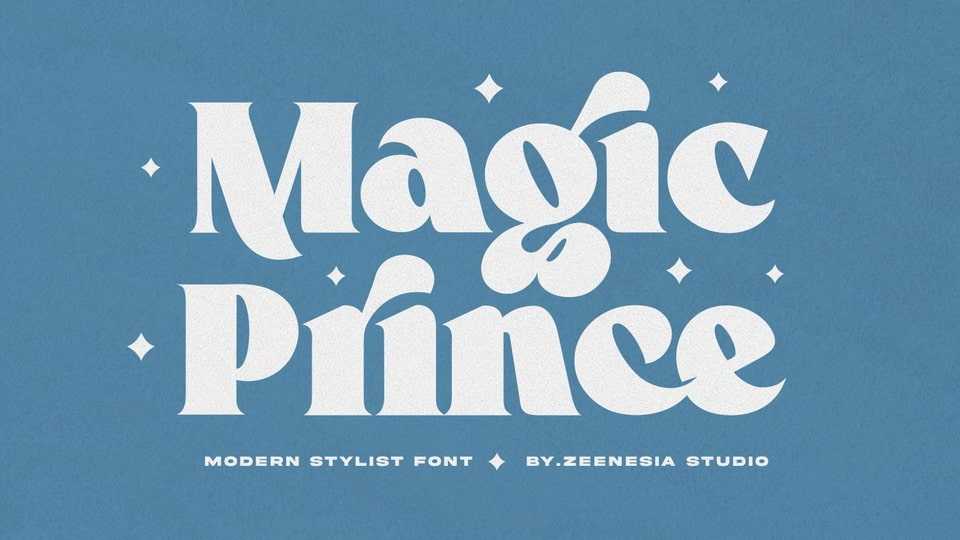
Download Magic Prince font, a cool, retro-style display typeface masterfully crafted to become a true favorite. Contemporary and fresh, Magic Prince font is perfect for any design you wish to create.
Designer: Zeenesia Studio